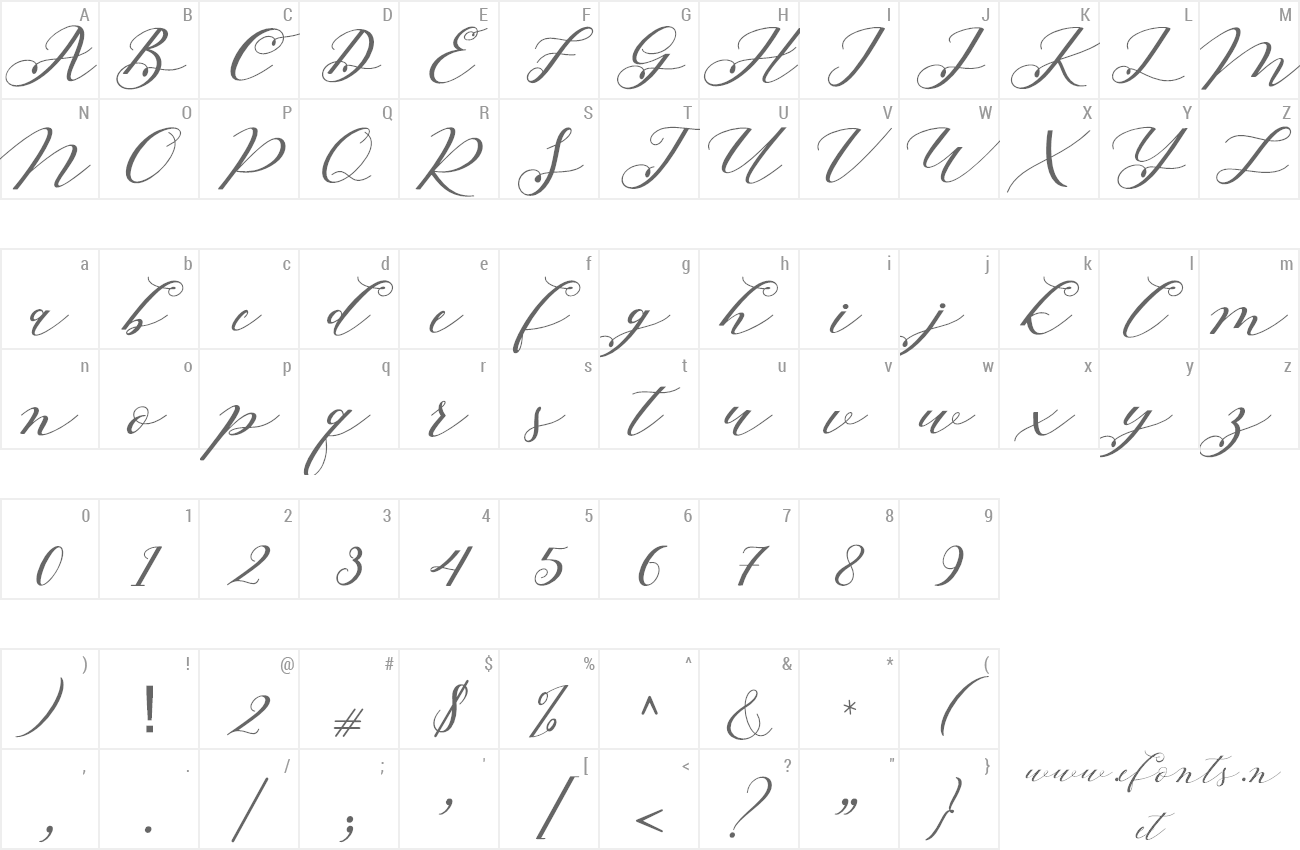
| Font name: | Beloved Script |
| Author: | Musafir LAB |
| Note by Musafir LAB | |
| Beloved Calligraphy An elegant new font! For those of you who need an elegant and modern touch for your design, this font is made for you! |